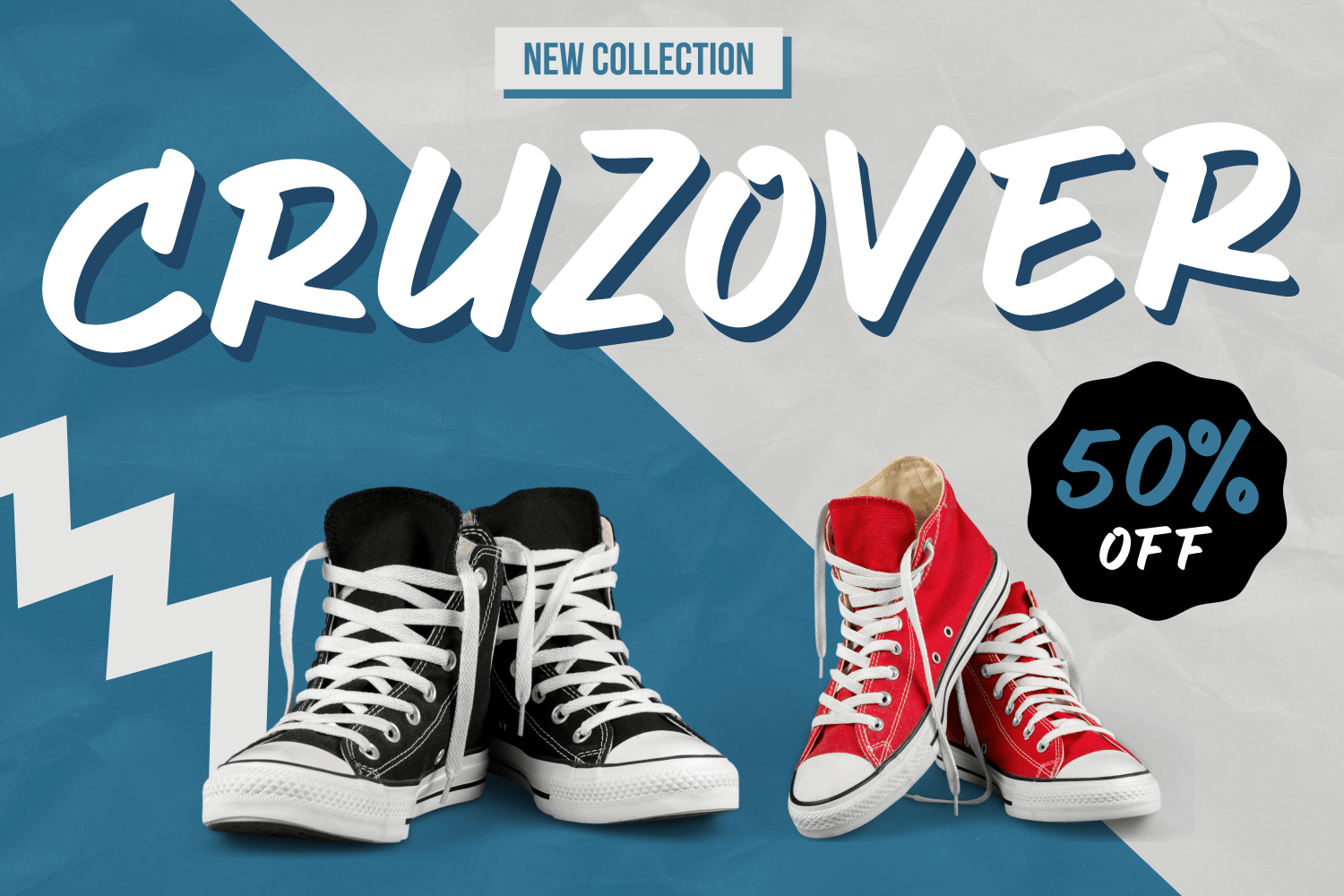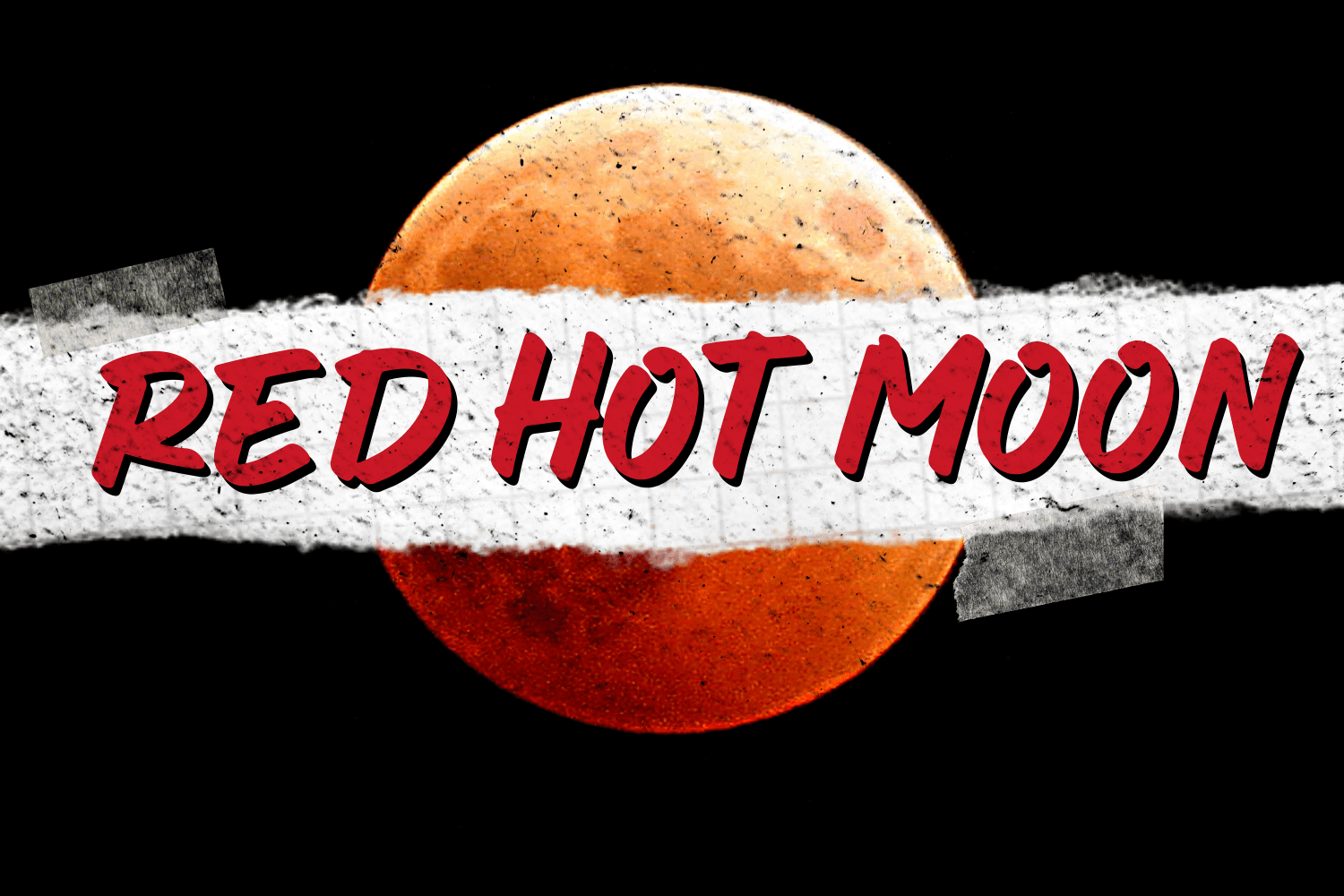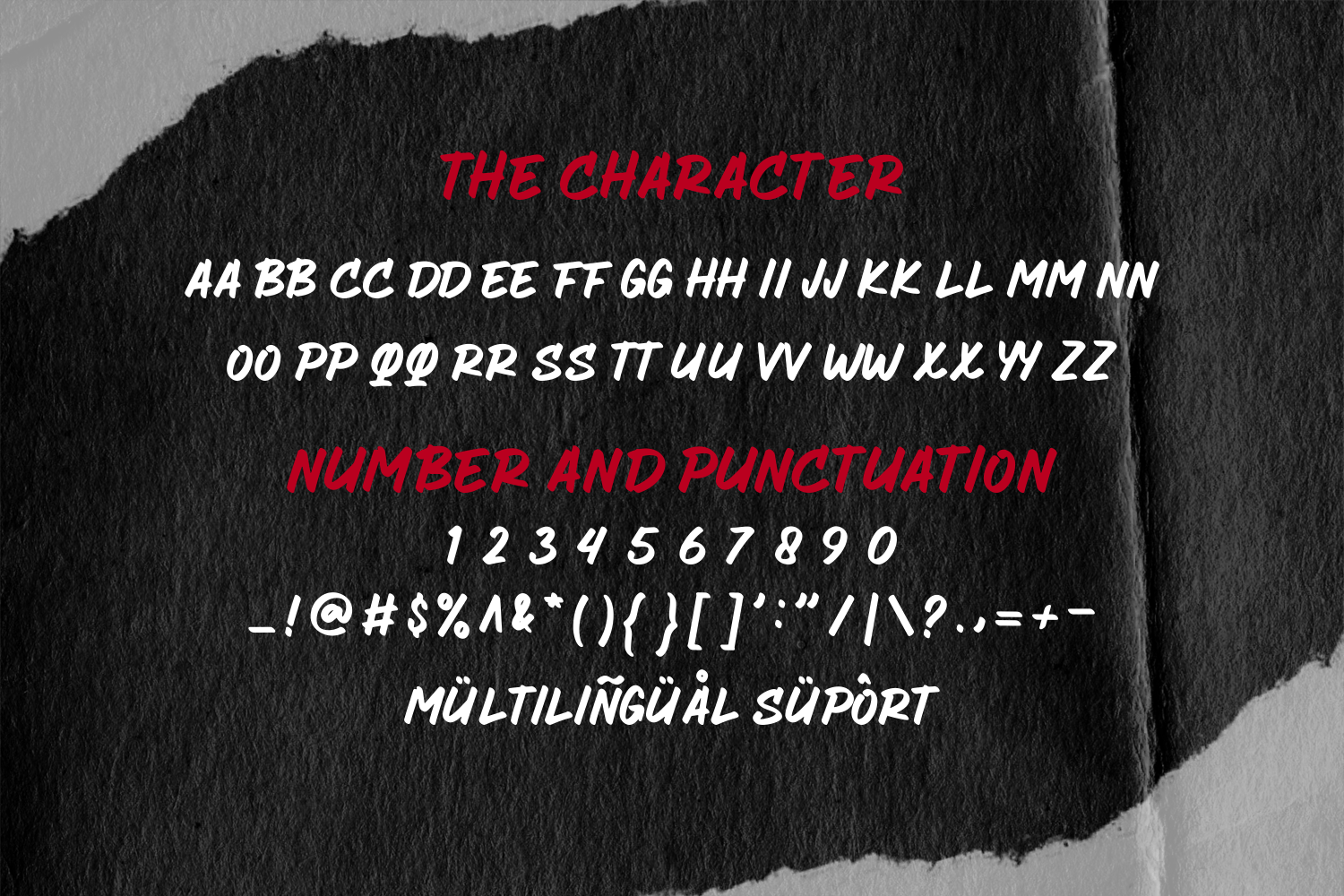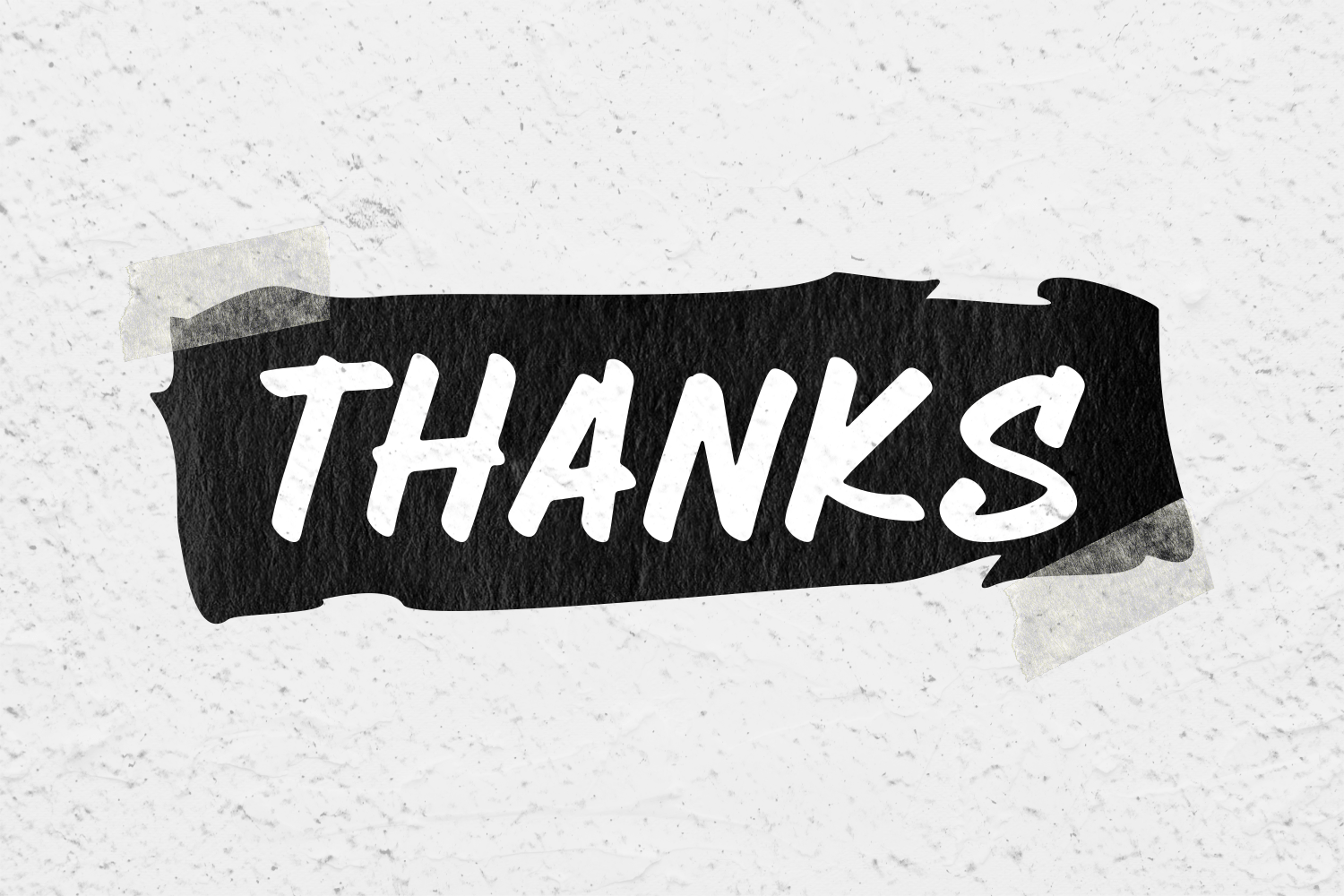
Racer Sore Font
Racer Sore Brush Font is a cute and charming display font. Whimsical and a bit quirky, this font will brighten up each of your designs. Add it confidently to your projects, and you will love the results.